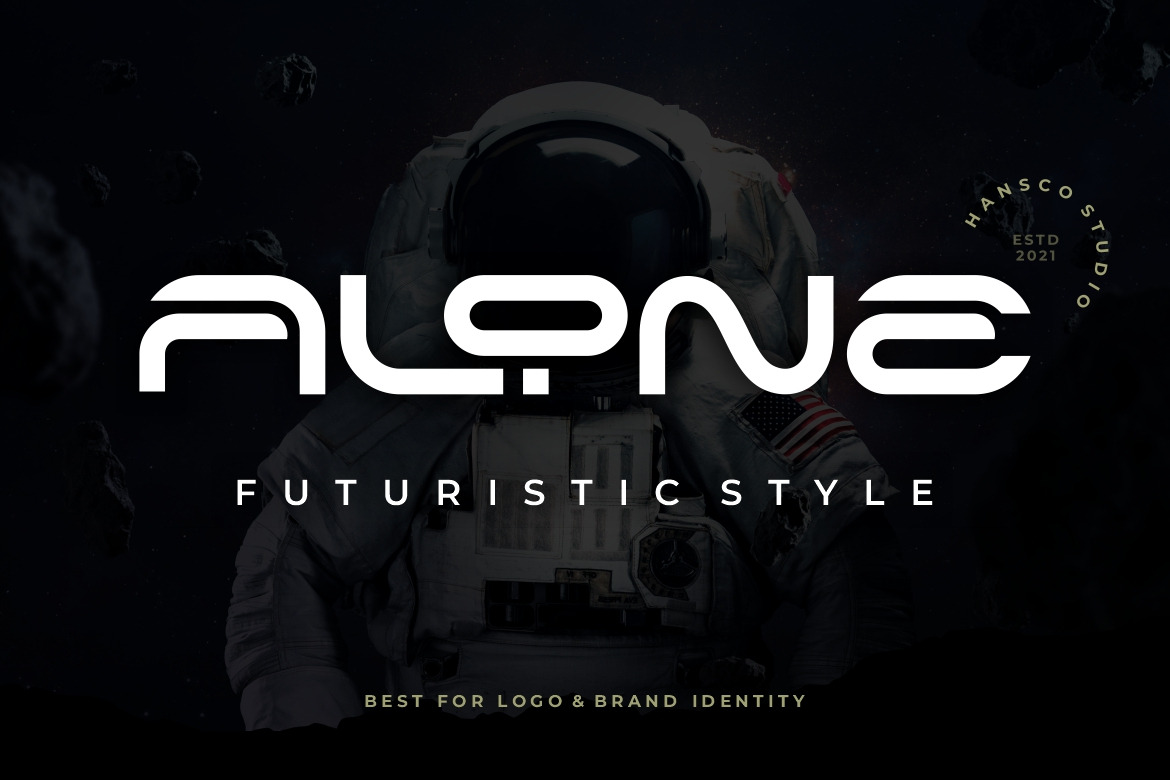
Alone - Futuristic Font
We are proud to present the futuristic Alone font. This font was inspired by passion for high technology spaceship stories. The basic visual characteristic of the typeface is the noticeable round of the characters and looks smooth angle flow in every letter. Alone font comes with a full uppercase, lowercase, numbers, punctuation and with extensive language support, it's going to be a very usable addition to your project. Thus, you get a universal font kit with which all the tasks of futuristic design are solved. However this font will make a great complement not only for projects with a sophisticated feel, but you can use this font for any purpose, especially for creating logo types such as general logo branding, development, advancement, and even science.